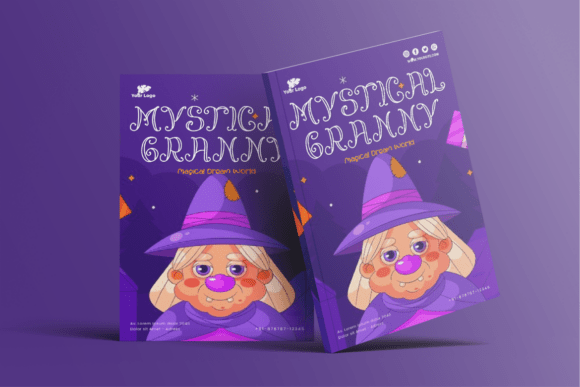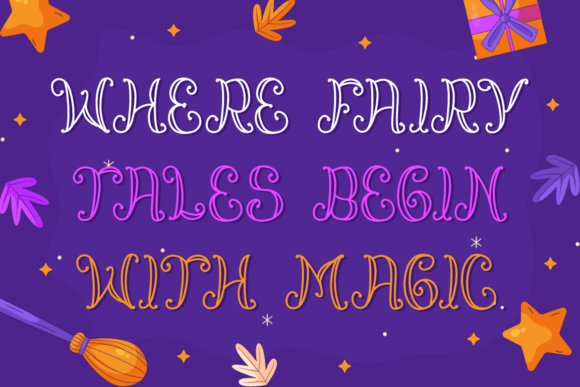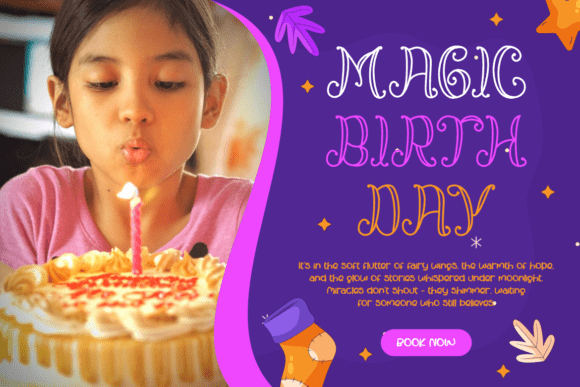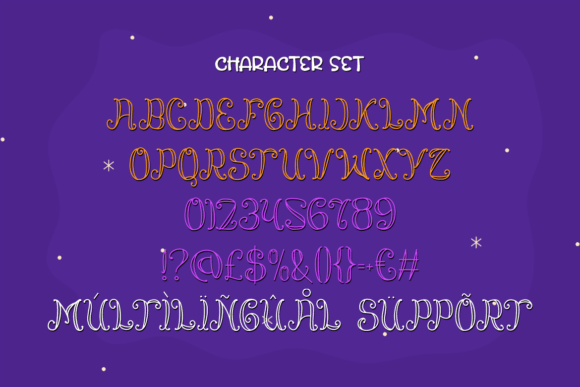
Introduction to Lumoria Tales Font
Have you ever found yourself lost in a world of fantasy, surrounded by magical creatures and enchanted forests? For many designers, this is the moment when creativity strikes, and the perfect font can transport them to a realm of endless possibility. Enter Lumoria Tales Font, a captivating display typeface that embodies the essence of whimsical storytelling.
With its elegant, swirling letterforms and intricate curls, Lumoria Tales Font is a design resource like no other. Its high-contrast strokes and soft pastel colors evoke a sense of enchantment, making it perfect for fantasy titles, children’s books, and magical branding. Whether you’re working on a creative project that requires a touch of magic or simply want to add a dash of whimsy to your designs, Lumoria Tales Font is a valuable addition to your toolkit.
What sets Lumoria Tales Font apart is its versatility and ease of use. Available for free download, this high-quality font offers both uppercase and lowercase alphabets, numerical digits, and a full punctuation set, complete with multilingual support. Its transparent background makes it easy to layer with illustrations and other design elements, allowing you to create truly unique and eye-catching designs.
Lumoria Tales Font
- Features a transparent background, allowing for seamless integration into various design environments.
- Unique characteristics include a fantasy-inspired aesthetic and intricate details, perfect for fantasy or sci-fi themed projects.
Honest Review: Lumoria Tales Font
I recently came across the Lumoria Tales Font, and I was excited to dive in and see what it had to offer. As a designer, I’m always on the lookout for high-quality design resources that can help elevate my creative projects.
One of the things that stood out to me about the Lumoria Tales Font is its unique, cursive script. It’s perfect for titles and headings, and it adds a touch of elegance to any design. ✨ I also appreciate that the font has a transparent background, making it easy to use on any background image or color.
Here are some of the key features of the Lumoria Tales Font:
- Unique, cursive script
However, I do have a few minor complaints. ⚠️ The font could benefit from more weights and styles, making it more versatile for different design projects. Additionally, the font doesn’t include any alternate characters or ligatures, which can be a limitation for designers who like to get creative with their typography.
Overall, I’d say the Lumoria Tales Font is a great addition to any designer’s toolkit. It’s perfect for titles, headings, and other creative projects where a unique, elegant font is needed. With a few more features, it could be a truly exceptional font. But as it stands, it’s still a solid choice for designers looking for a high-quality design resource.
The Lumoria Tales Font is a high-quality design resource perfect for creative projects. This elegant font features a transparent background, making it ideal for various design applications.
To get the most out of the Lumoria Tales Font, experiment with different font sizes, colors, and combinations. This font is versatile and can be used in a variety of creative projects, from branding to typography.
The Lumoria Tales Font is perfect for:
- Infographics and data visualizations
- Wedding invitations and event design